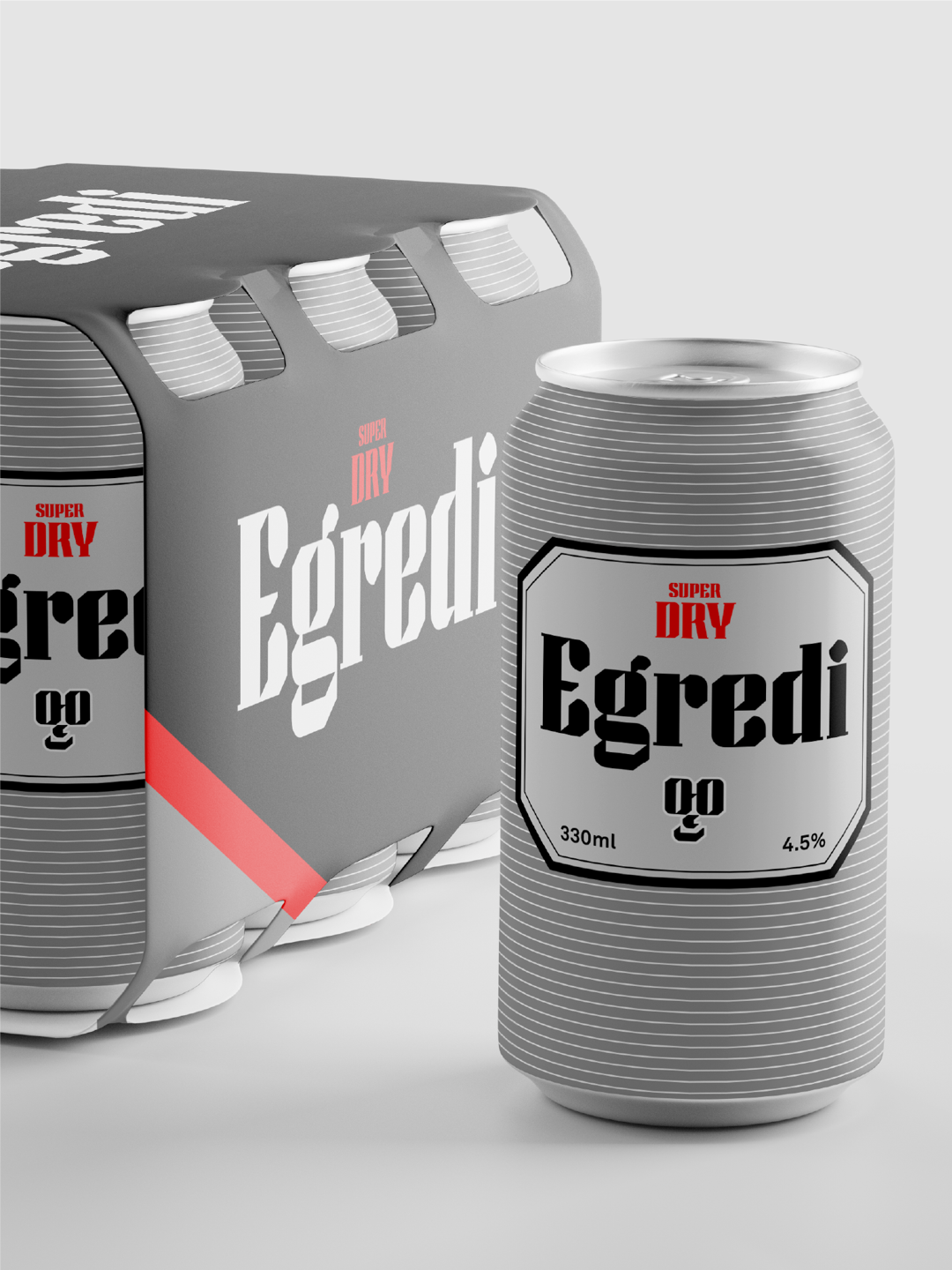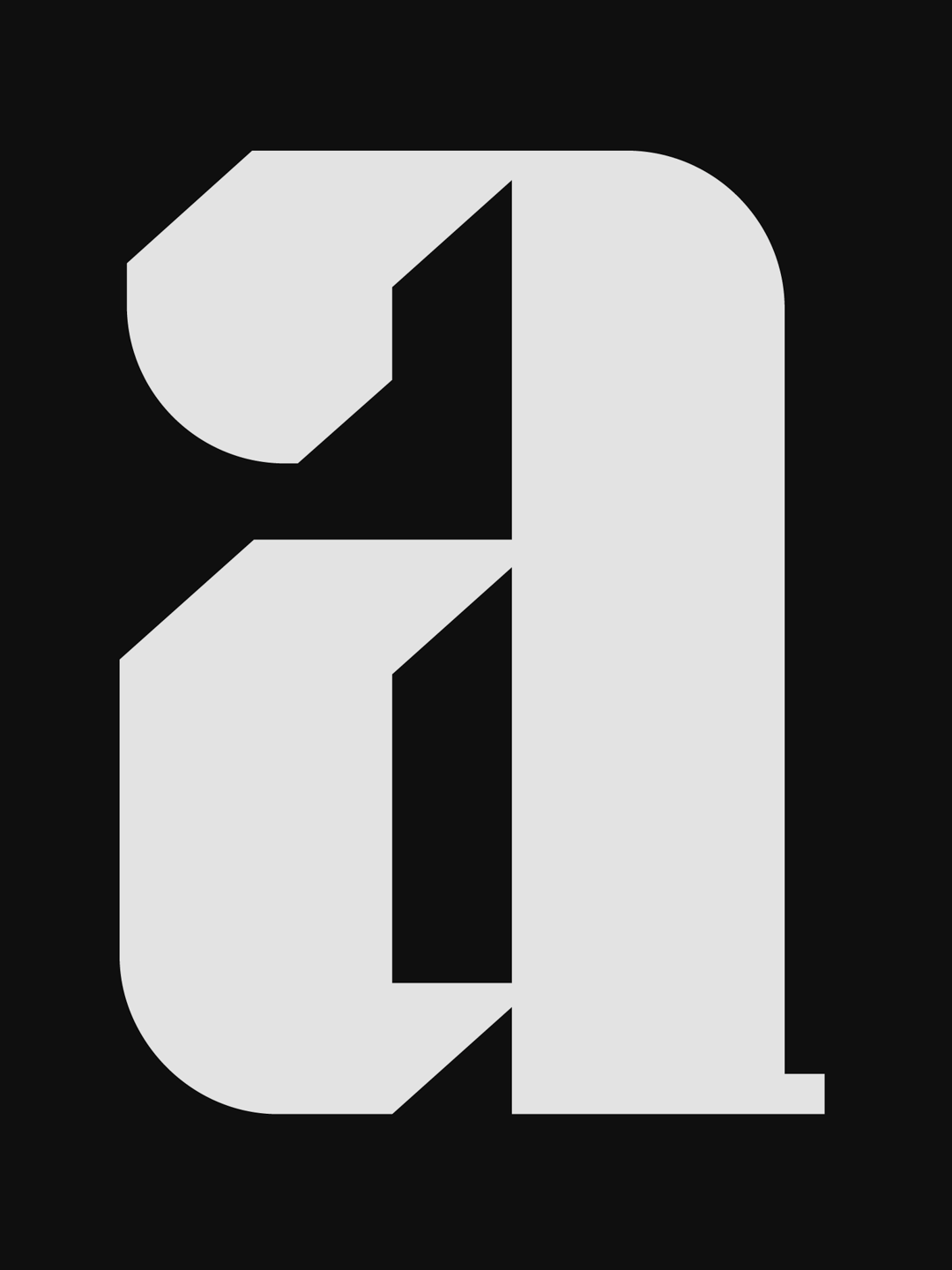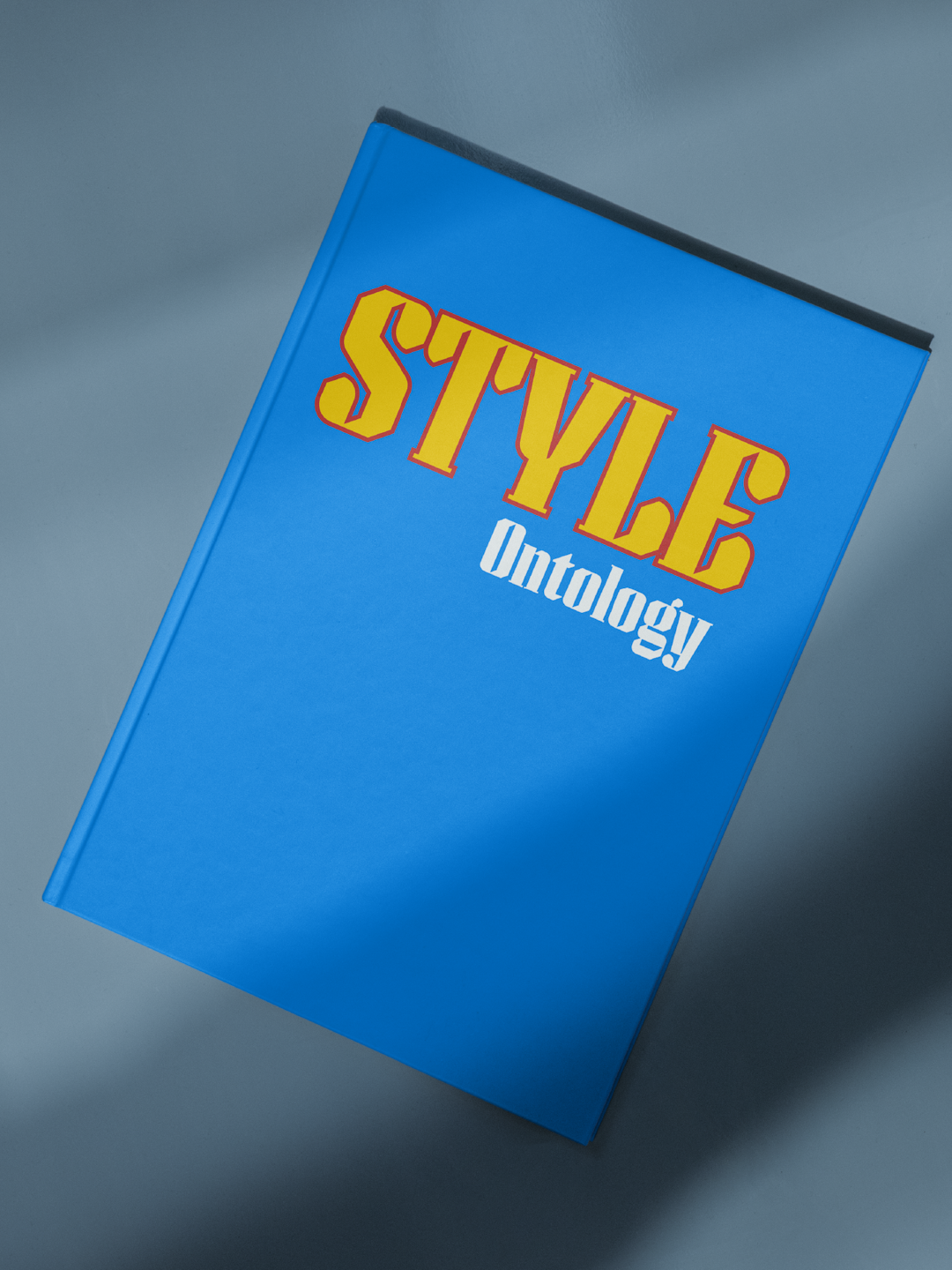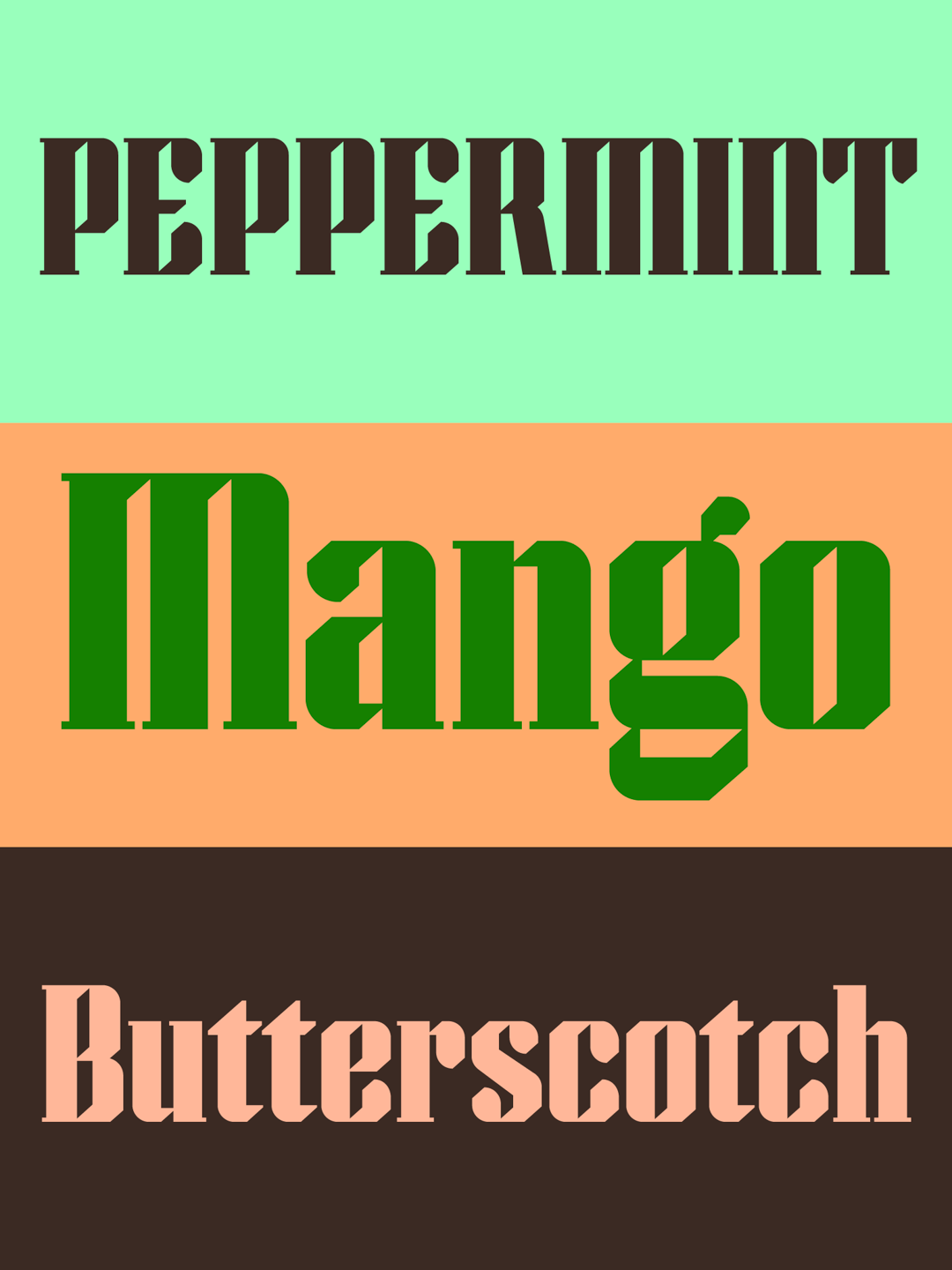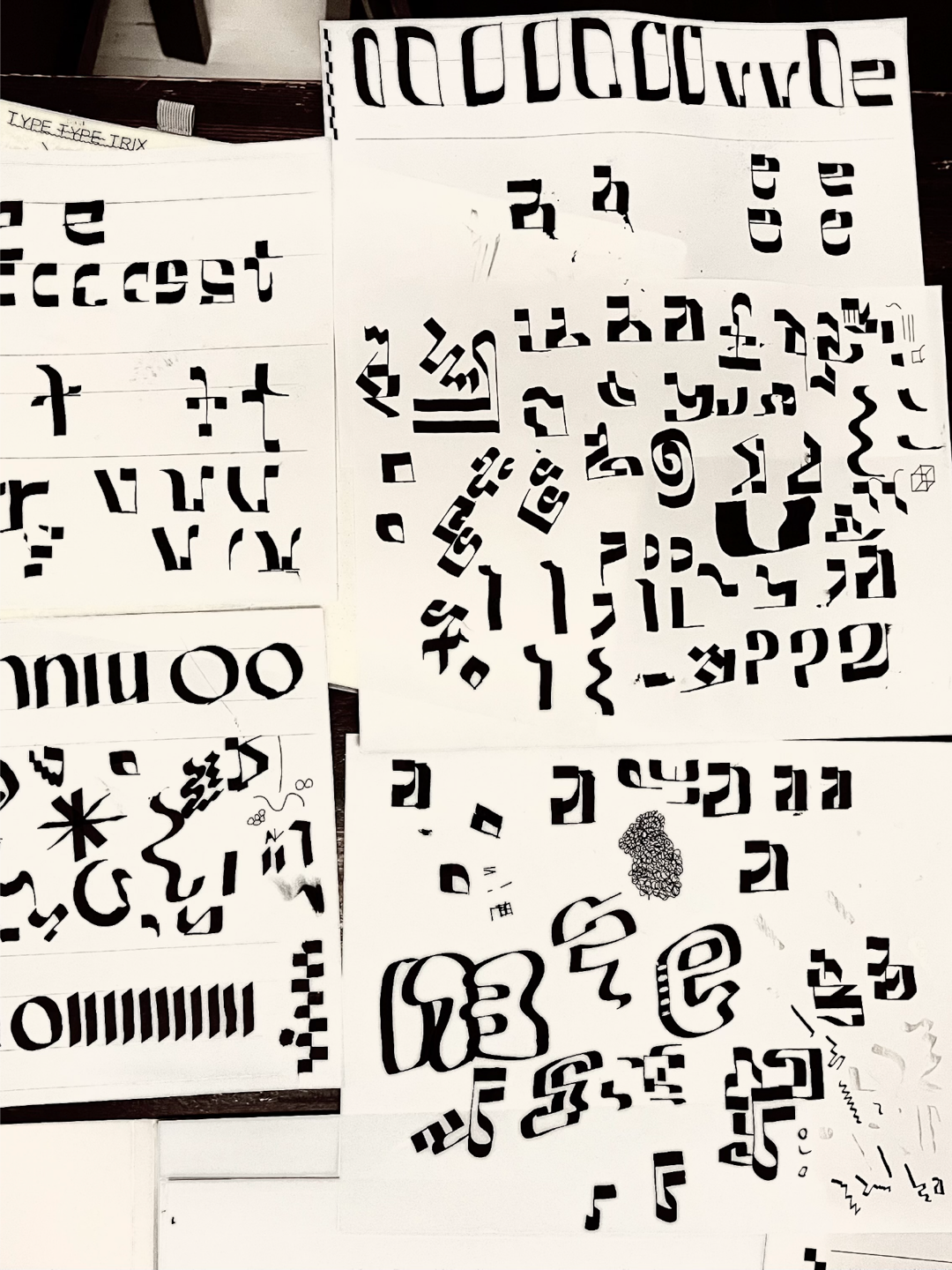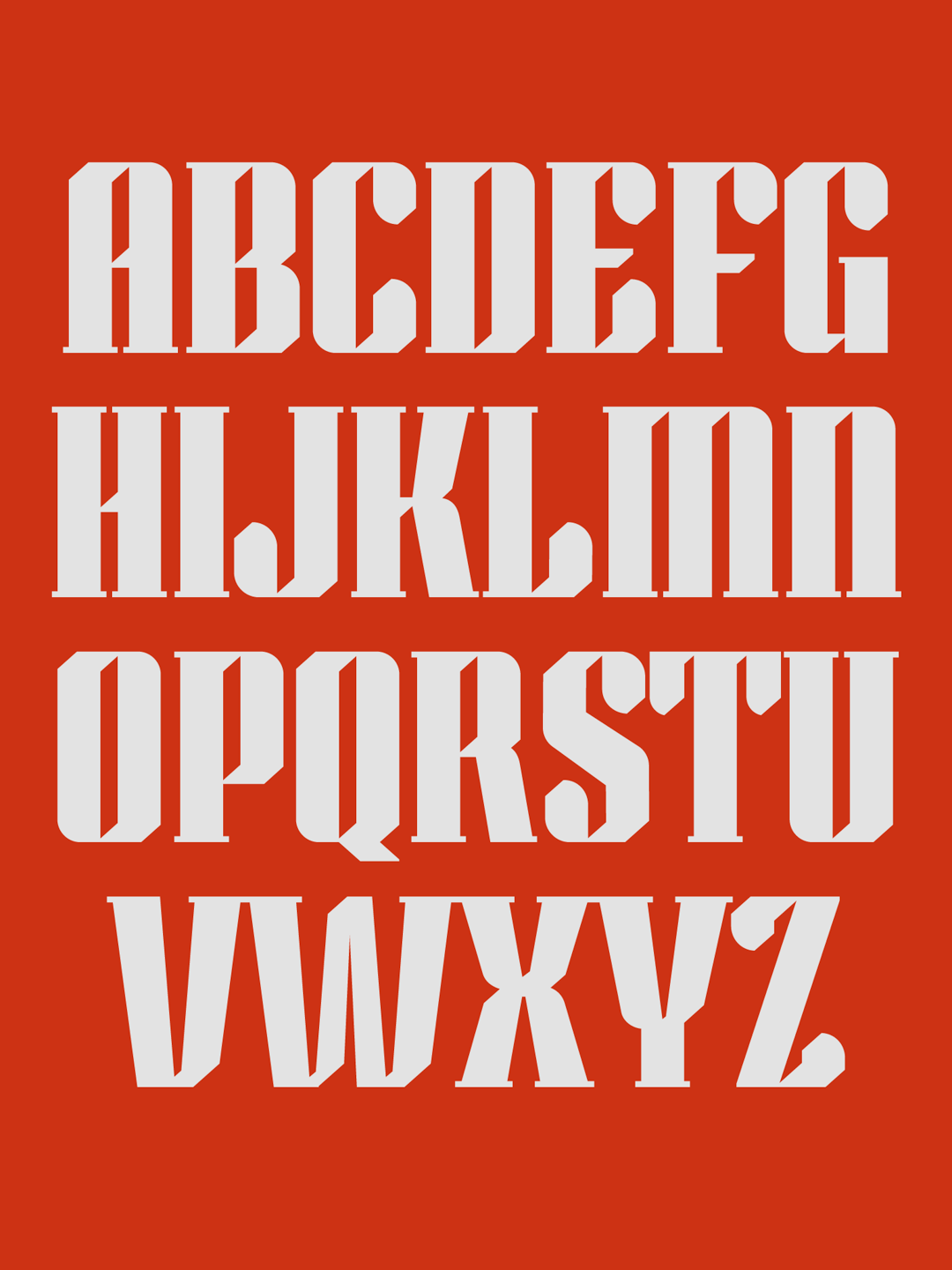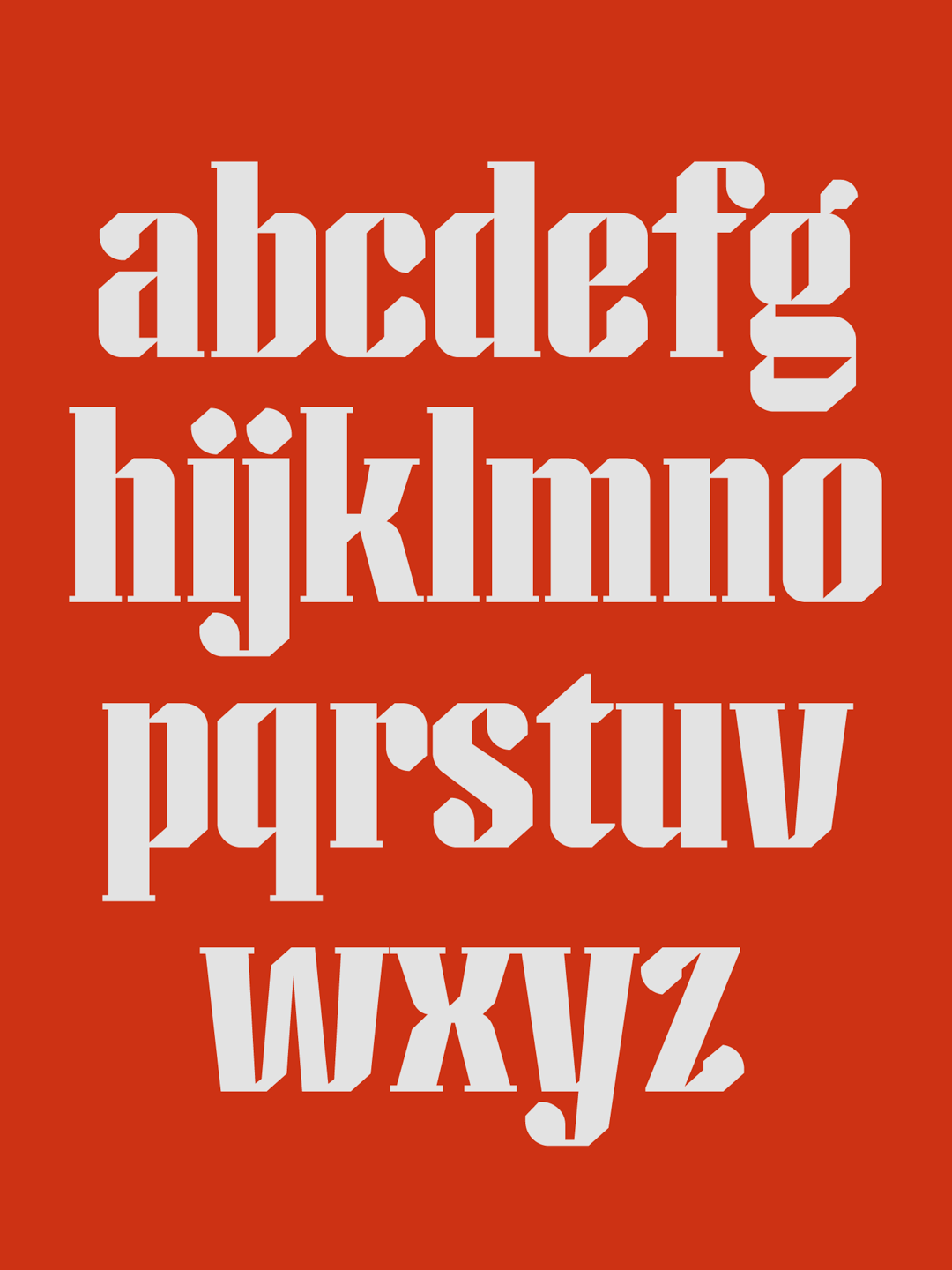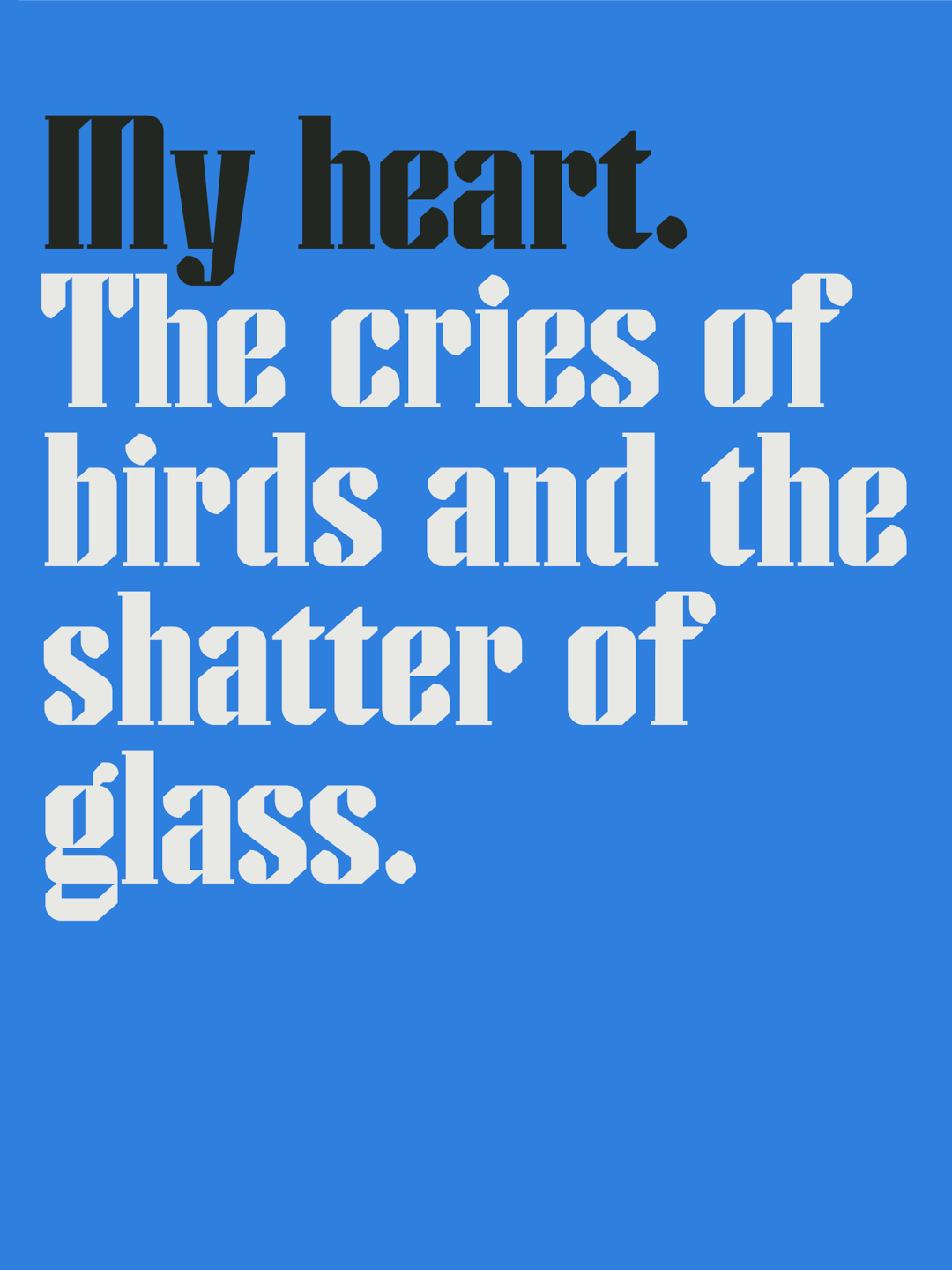
Egredi is an experimental, bold display typeface for headlines and titles that embodies its name: a Latin verb meaning “to step out”, “disembark” or “to go beyond”. It lives up to its promise with angular letterforms inspired by broad-nib pen strokes and refined through a geometric, grid-based modular system. Its structure is deliberate, yet subtle calligraphic gestures break through the rigidity. Each form, like its namesake, “deviates” and “ascends” from convention, resulting in a distinctively progressive, forward-leaning aesthetic.